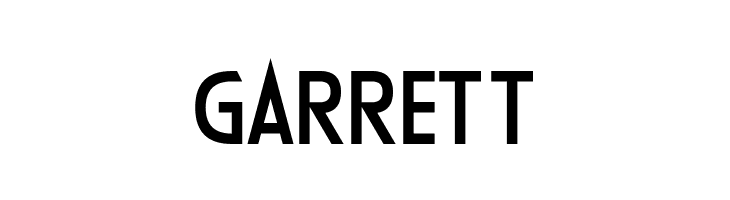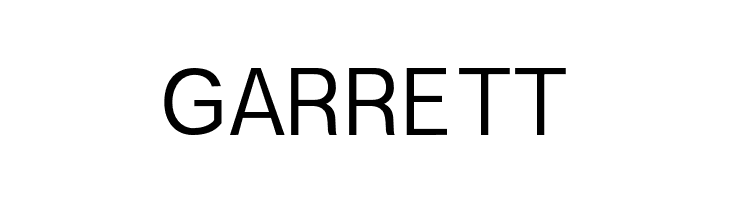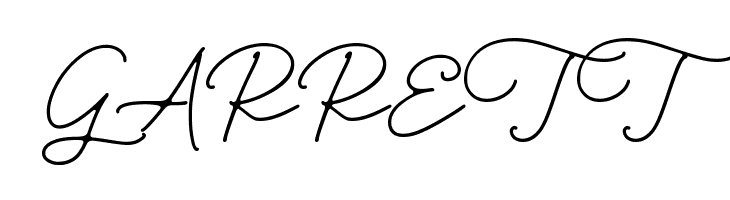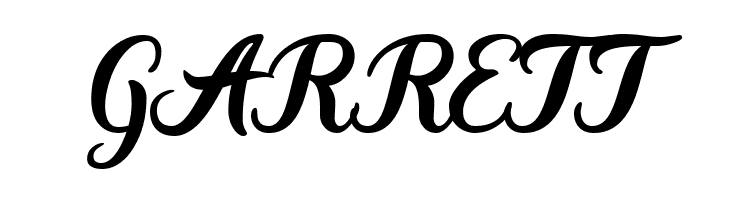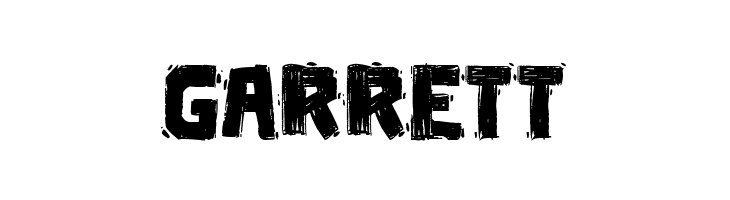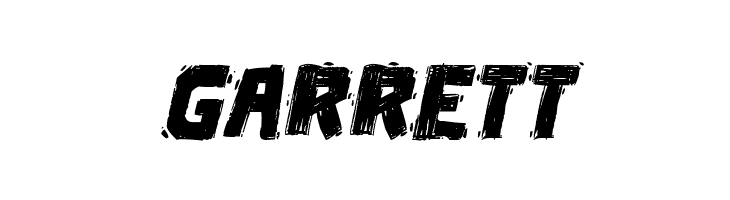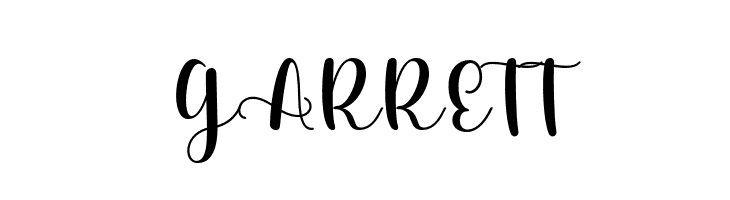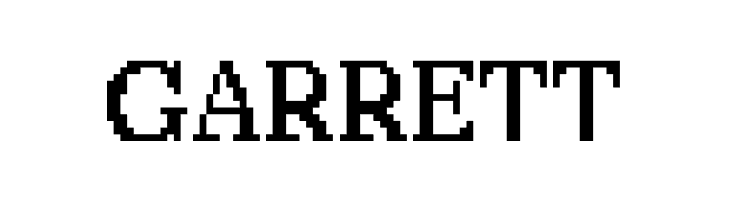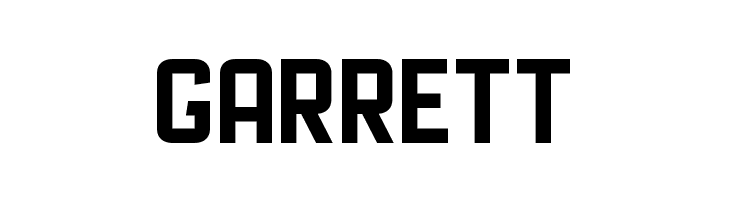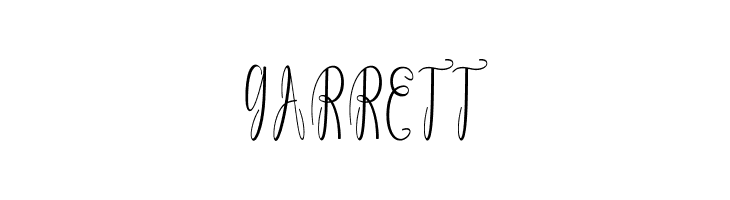
A cursive, handwritten-style font with elegant loops and swashes.
A flowing, cursive font with elegant, elongated strokes and interconnected letters.
A bold, artistic script font with a handcrafted, brush-like style.
A playful, hand-drawn font with a textured, scribbled appearance.
A bold, geometric font with a modern and cohesive design.
A playful, dice-themed decorative font with bold, high-contrast characters.
An elegant, flowing script font with thin, delicate strokes and graceful curves.
A playful, geometric font composed of dots and squares, ideal for creative projects.
A dynamic brush script font with expressive, fluid strokes and a hand-crafted feel.
A playful handwritten font with smooth, irregular strokes and a casual feel.
A lively script font with fluid, connected letterforms and a playful elegance.
A bold slab serif font with strong serifs and high contrast, ideal for impactful headlines.
A bold, decorative font with a vintage, circus-like style.
A bold, hand-drawn font with a playful, irregular style.
A playful, hand-drawn chalk-style font with bold, outlined characters.
A bold, chalk-like font with a playful, hand-drawn style.
A handwritten, italic-style font with a casual and organic flow.
A bold, stencil-style font with a hand-drawn, graffiti-like appearance.
A modern, clean sans-serif font with balanced proportions and excellent readability.
A playful, handwritten font with rounded edges and a casual style.
A modern, geometric sans-serif font with uniform strokes and a slightly condensed style.
A bold, geometric font with a modern, tech-inspired aesthetic.
A bold, distressed font with a grunge aesthetic, perfect for edgy designs.
A bold, distressed, and italicized font with a grunge texture.
A dynamic, cursive script font with elegant italic styling.
A bold, decorative font with a vintage flair and strong presence.
A playful, handwritten font with a casual and friendly appearance.
A bold, geometric font with a futuristic and striking appearance.
A graceful script font with flowing, cursive strokes and elegant loops.
A bold, brush-like font with a vintage, hand-painted style.
Bold, textured serif font with a vintage Western saloon style.
A bold, italicized font with a distressed, textured appearance for dynamic designs.
A bold, distressed font with a rugged, industrial style.